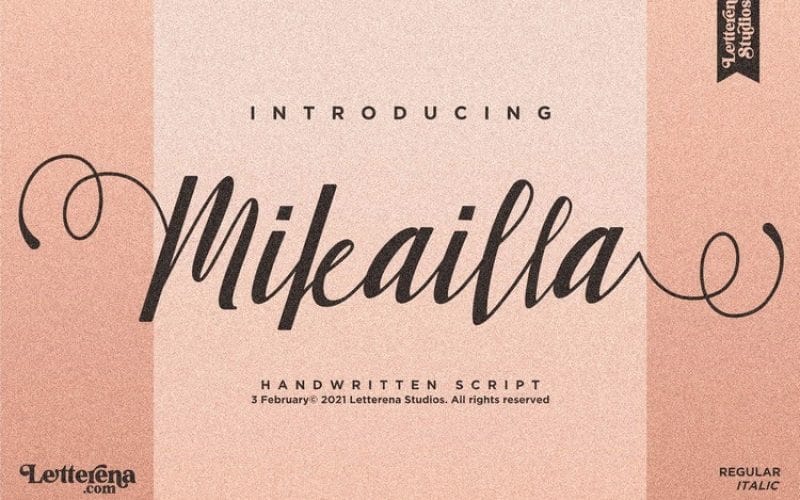
Mikailla Font
Mikailla Calligraphy Font, designed by Letterena Studios is a luxury script font, designed to easily represents the formal and premium quality of any project you’re working on. This font is suitable for any projects such as: logos, branding projects, homeware designs, product packaging, mugs, quotes, posters, shopping bags, t-shirts, book covers, name card, invitation cards, greeting cards, label, photography, watermark, special events, and all your other lovely projects that need a beautiful Script taste.